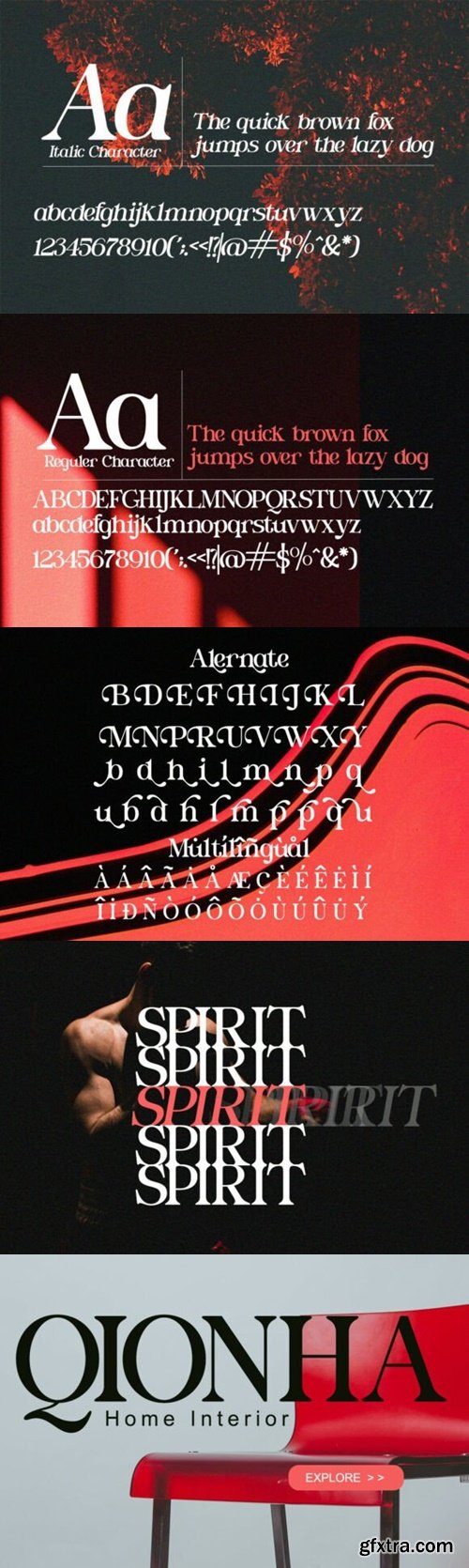
CreativeMarket - Lubidow – Modern Elegant Serif
- Introducing Lubidow – a sophisticated serif display font that merges timeless charm with a bold modern flair.
- With its dramatic contrast, flowing curves, and signature swash touches, Lubidow is crafted to command attention and elevate your typographic identity. Whether in large headlines or subtle brand signatures, it offers a high-end presence that’s unforgettable.
- Designed for designers who value elegance and impact, Lubidow is perfect for a range of creative and commercial applications.
- From luxury branding and fashion editorials to packaging, magazine titles, and digital storytelling, Lubidow provides a refined visual voice that speaks with style and authority.